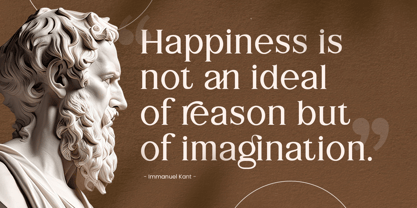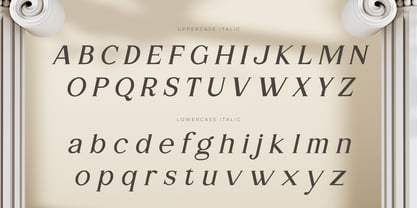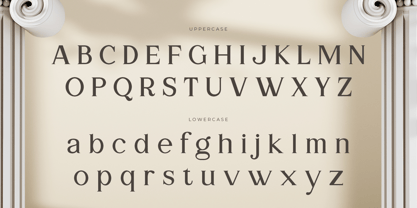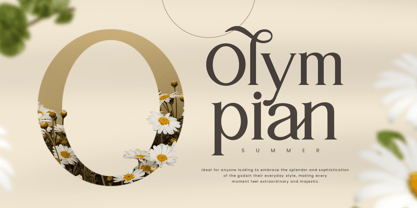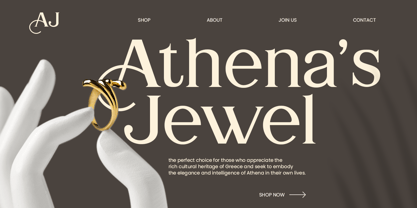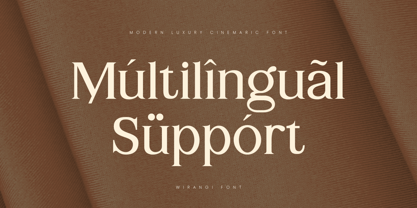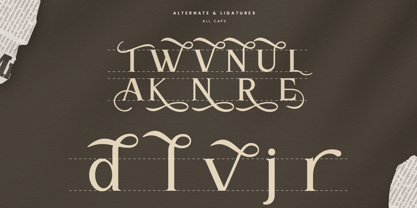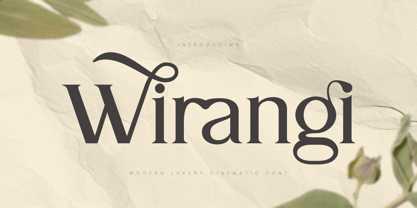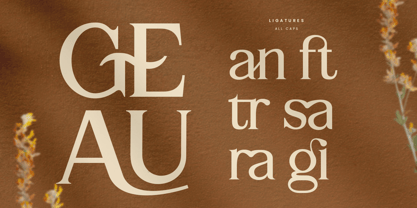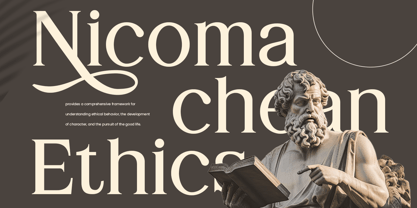
Wirangi
A família de fontes Wirangi foi desenhada por Zamroni Hamzah e publicada pela Sensatype Studio. Wirangi contém 2 estilos e opções de pacote familiar. Saiba mais sobre esta família
Wirangi -Modern Luxury Cinematic Font
Wirangi is a modern luxury cinematic font, thoughtfully crafted for designers who aim to create bold and elegant visual statements. Its sleek and sophisticated design makes it the ideal choice for high-end branding, cinematic titles, and upscale product packaging. Whether for fashion, film, or luxury goods, Wirangi adds a sense of exclusivity and grandeur to your projects.
Inspired by modern aesthetics, Wirangi’s refined letterforms and subtle curves ensure timeless appeal and versatility. Its luxurious vibe blends perfectly with contemporary and classic design elements, making it a must-have for premium designs that demand attention and style.
Wirangi Modern Luxury Cinematic Font Features:
• Elegant and Cinematic Character Set
• Unique Ligatures & Alternative Characters
• Punctuation, Numbers, and Symbols
• Uppercase and Lowercase
• Opentype Features